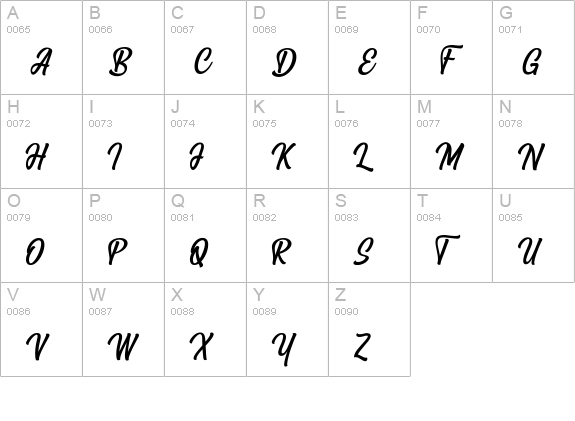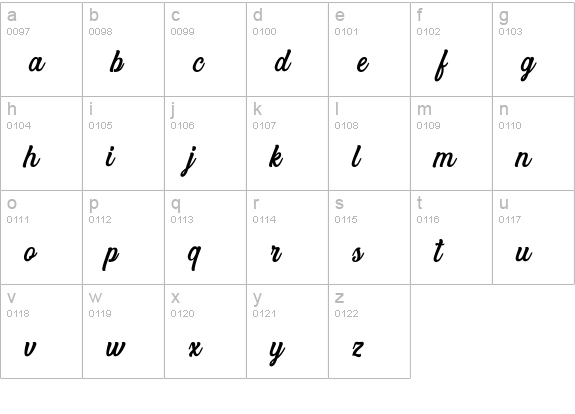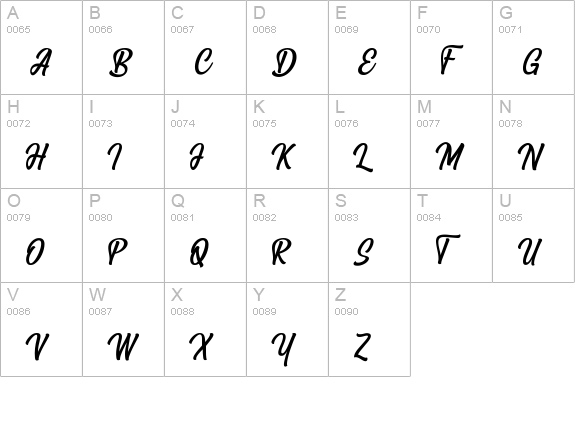
Angler - Modern Script Font is a stunning typeface that exudes elegance and sophistication. Its sleek and flowing design is perfect for adding a touch of luxury to your projects. Whether you're working on invitations, logos, branding, or any other creative endeavor, Angler is sure to make a bold statement.
With its modern and stylish aesthetic, Angler - Modern Script Font is versatile and can be used for a wide range of design projects. Its graceful curves and smooth lines will elevate any design and bring a touch of sophistication to your work. Download Angler today and see how it can enhance your creative projects!